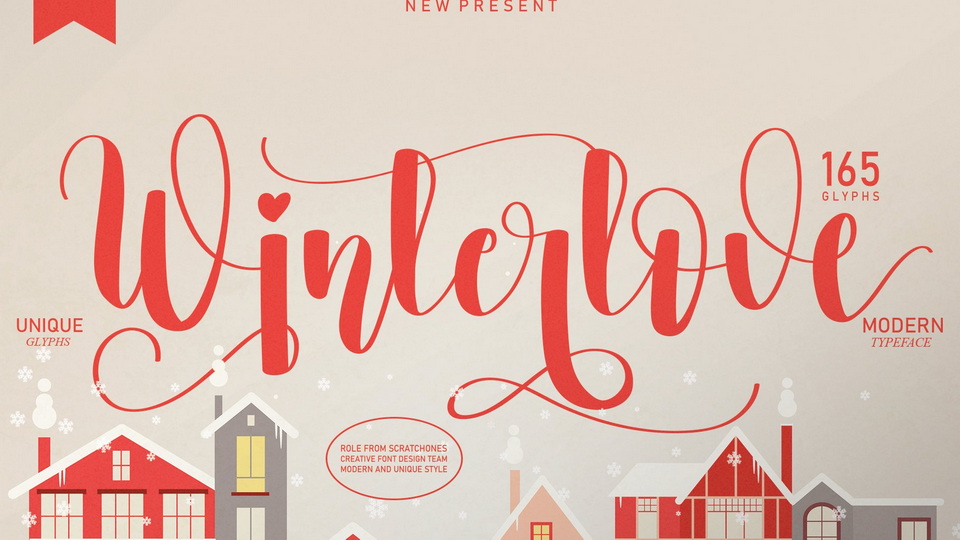
Download Winterlove font, a flowing handwritten typeface with a touch of romance. Winterlove font is perfect for your creative ideas, both formal and informal.